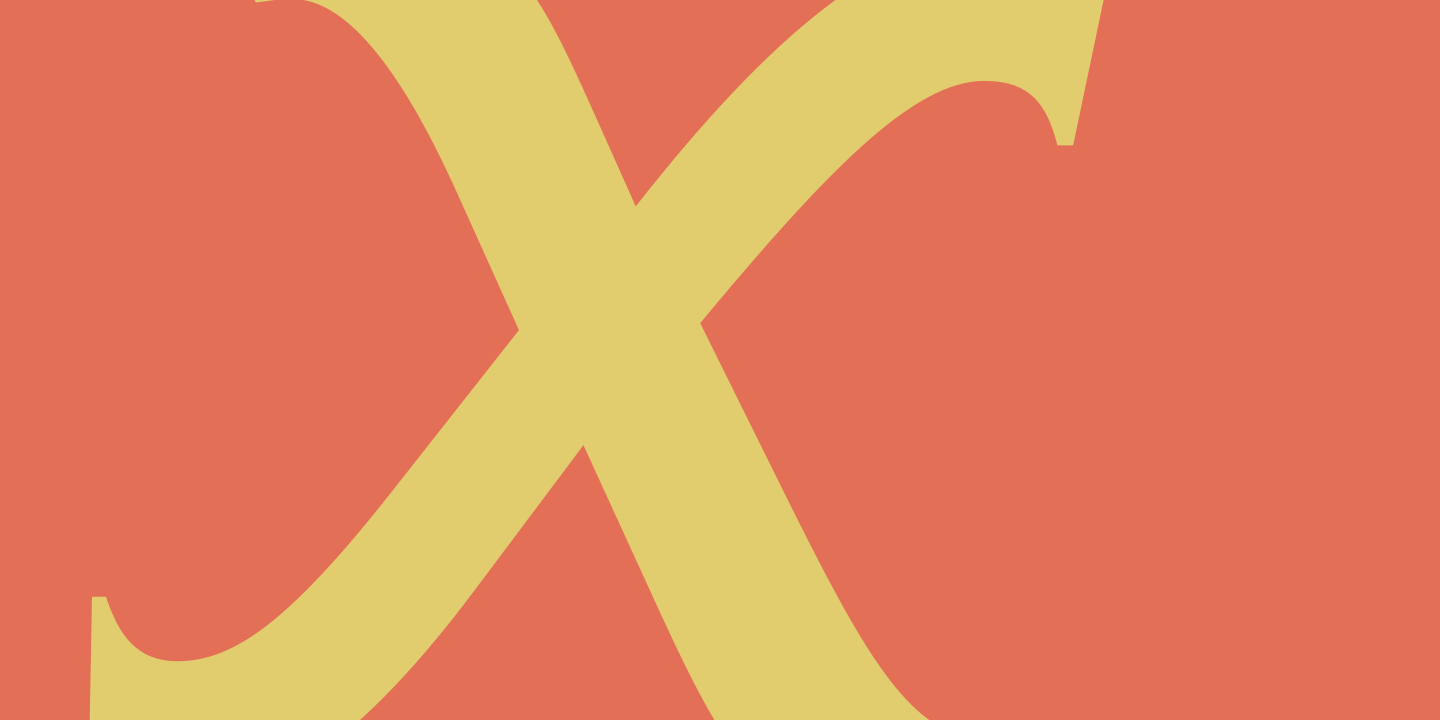
ITC Elan Font is perfect for dynamic advertising campaigns, energetic sports branding, vibrant lifestyle magazines, contemporary fashion labels, modern fitness center signage, creative agency materials, youthful brand identities, and spirited design projects that require typography with enthusiastic energy and contemporary vivacity.
This ITC Elan Font is exciting because it radiates infectious enthusiasm and spirited energy with dynamic letterforms that seem to pulse with vitality, featuring bold character construction and lively proportions that convey passion and excitement while maintaining exceptional readability for high-energy commercial applications and contemporary branding needs.
The ITC Elan Font family includes energetic weights with dynamic styling, complete character sets with spirited uppercase and lowercase letters, vibrant numerals, lively punctuation, and enthusiastic symbols that provide comprehensive typography solutions for energetic and contemporary design projects requiring authentic vivacious aesthetics and spirited appeal.
Perfect for creating dynamic communications and energetic brand identities, ITC Elan Font Free Download delivers the spirited typography that transforms text into powerful expressions of enthusiasm and contemporary energy. This distinctive typeface from ITC embodies the essence of youthful vitality and passionate expression, making it essential for projects celebrating dynamic energy, contemporary culture, spirited branding, and any design requiring vivacious character with authentic enthusiasm and timeless energetic appeal that inspires action and excitement.